Examine the “worst fonts” discussion, explore design criticism versus gatekeeping, analyze why certain typefaces are dismissed, and challenge typography elitism.
Introduction: The Politics of “Worst Fonts”
Typography design community frequently dismisses certain typefaces as “worst fonts”โComic Sans being notorious example. Yet this dismissal raises important questions:
- What makes font “worst”? Who decides? Does criticism reflect legitimate design concerns or reflect design gatekeeping and elitism?
The “worst fonts” conversation reveals profound tensions in design culture between legitimate aesthetic criticism and gatekeeping behavior. Design professionals sometimes use “worst fonts” designation as status markerโestablishing design authority through dismissal of certain typefaces.
Yet dismissing Comic Sans misses important truths. Comic Sans possesses genuine accessibility benefits for dyslexic readers. The typeface serves real communication purposes. Dismissing Comic Sans reflects design gatekeeping rather than legitimate criticism.
This pattern extends beyond Comic Sans. Other frequently criticized typefacesโPapyrus, Impact, Calibriโoften serve practical purposes or possess genuine design merit despite professional dismissal.
The “worst fonts” conversation thus requires critical examination. We must distinguish between legitimate design criticism and gatekeeping behavior. We must recognize that design professionals’ preferences reflect cultural positioning rather than objective aesthetic truth.
Design gatekeeping operates through multiple mechanisms. Professional designers dismiss certain typefaces as “amateur” or “unsophisticated.” These dismissals establish professional authority while marginalizing non-professional designers.
Yet this gatekeeping causes genuine harm. It discourages people from design engagement. It establishes false hierarchy between “good” and “bad” design. It reflects elitism rather than design excellence.
This comprehensive exploration examines the “worst fonts” phenomenon, analyzes design criticism versus gatekeeping, explores accessibility and functional design arguments, considers democratic design values, examines how dismissal operates within design culture, and ultimately asks:
- how can we develop design criticism acknowledging legitimate concerns while rejecting gatekeeping and elitism?
The “Worst Fonts” Phenomenon: Cultural Analysis
Comic Sans as Canonical Example
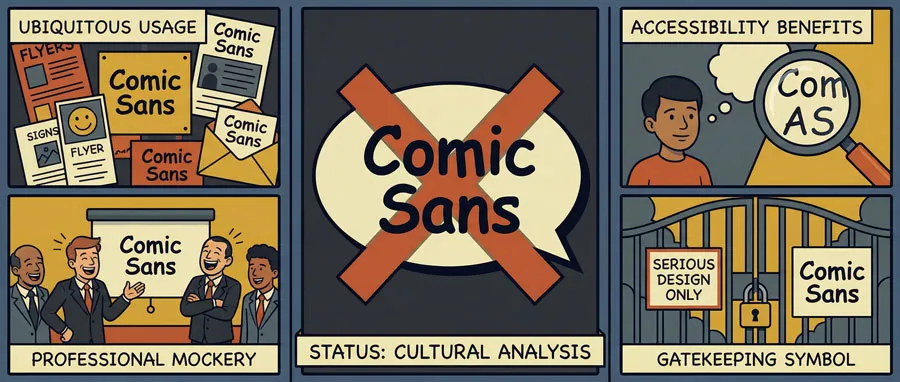
Comic Sans has achieved status as canonical “worst font”โsymbol of bad design taste and amateur status. The typeface is routinely dismissed and mocked within design communities.
Yet Comic Sans is ubiquitous. Millions use Comic Sans daily. The typeface serves real communication purposes. Dismissing Comic Sans universally suggests gatekeeping rather than legitimate criticism.
Papyrus and Decorative Dismissal
Papyrus is similarly dismissed as “worst font”โtreated as symbol of design incompetence and amateur status. Yet Papyrus possesses legitimate applications and aesthetic appeal.
The dismissal of Papyrus reflects design gatekeeping and cultural positioning.
Impact and Commercial Rejection
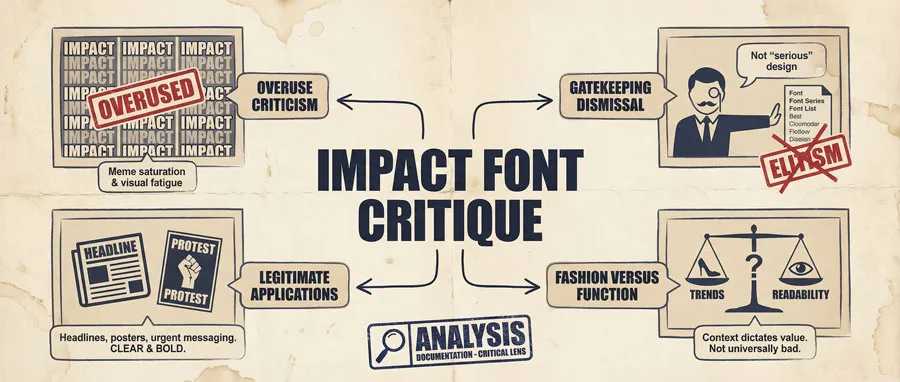
Impact is frequently criticized as “worst font”โdismissed as overused and aesthetically bankrupt. Yet Impact possesses legitimate high-impact display applications.
The rejection of Impact reflects fashion rather than legitimate criticism.
Calibri and Default Denigration
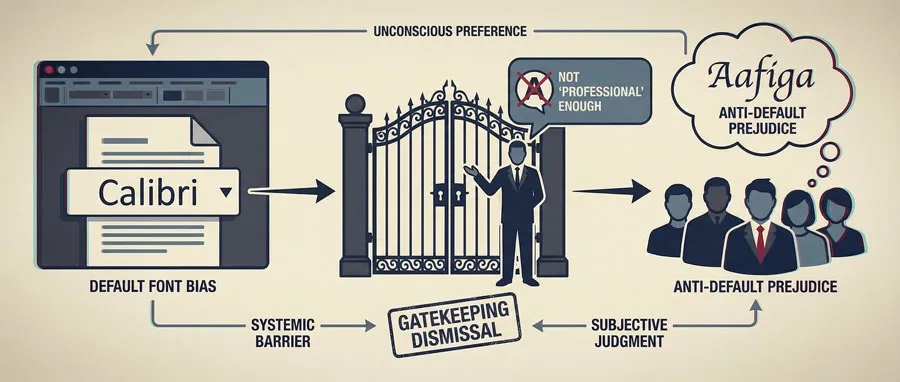
Calibri is dismissed partly because it is default fontโtreated as symbol of design laziness. Yet default status does not indicate design failure.
This dismissal reflects bias against default choices rather than legitimate aesthetic criticism.
Cultural Pattern and Gatekeeping
Pattern emerges: design culture dismisses certain typefaces not based on legitimate criticism but based on cultural status. Dismissal serves gatekeeping function establishing professional design authority.
Design Criticism vs. Gatekeeping: Distinguishing Approaches
Legitimate Design Criticism
Legitimate design criticism examines how typeface serves communication purposes. Does typeface serve intended communication? Are letter forms legible? Does design achieve intended aesthetic goals?
Legitimate criticism acknowledges context, acknowledges multiple valid design approaches.
Gatekeeping Behaviour
Gatekeeping uses design criticism to establish professional authority and exclude non-professionals. Gatekeeping dismisses entire categories of typefaces regardless of context or application.
Gatekeeping maintains professional status through dismissal rather than through design excellence.
Status Markers and Professional Positioning
Design profession uses certain typefaces as status markers. Adopting “good” fonts establishes professional credibility. Using dismissed fonts establishes amateur status.
This status system operates through gatekeeping rather than legitimate design assessment.
Accessibility Versus Fashion Hierarchy
Design culture often privileged fashion over accessibility. Comic Sans is dismissed despite accessibility benefits for dyslexic readers.
Gatekeeping prioritizes aesthetic fashion over inclusive design.
Context and Application Dismissal
Gatekeeping dismisses typefaces universally regardless of context. Yet Comic Sans works well for dyslexic readers and casual communication. Context should determine typeface appropriateness.
Gatekeeping ignores context and application in favor of universal dismissal.
Related Topics:
Accessibility and Functional Design Arguments
Comic Sans and Dyslexia Support
Research demonstrates Comic Sans’ accessibility benefits for dyslexic readers. The typeface’s distinctive letterforms assist dyslexic reading comprehension.
Dismissing Comic Sans dismisses accessibility benefits and disadvantages dyslexic users.
Beyond Aesthetics: Functional Requirements
Design encompasses more than aesthetics. Functionality, accessibility, and practical utility matter profoundly. Comic Sans prioritizes functional accessibility over aesthetic fashion.
Gatekeeping privileges aesthetics over accessibility and functionality.
Inclusive Design and Democratic Values
Inclusive design recognizes diverse user needs. Some users require distinctive letterforms for accessibility. Some users prefer informal typeface aesthetic.
Gatekeeping rejects inclusive design in favor of narrow professional aesthetic.
Universal Design Principles
Universal design principles emphasize designing for diverse users. Dismissing typefaces for diverse users contradicts universal design values.
Gatekeeping opposes universal design principles.
Diversity of Communication Contexts
Different communication contexts warrant different typeface choices. Casual communication differs from academic publishing. Diverse contexts require diverse typeface choices.
Gatekeeping imposes narrow typeface hierarchy rather than acknowledging context diversity.
Related Topics:
Democratic Design and Alternative Perspectives
Design Belongs to Everyone
Design is not exclusive professional practice. Non-professionals engage design daily. Democratic design values recognize non-professional design engagement.
Gatekeeping maintains design as exclusive professional domain.
Amateur Design Legitimacy
Amateur design possesses legitimacy despite professional dismissal. Non-professionals create meaningful, functional, beautiful design.
Professional gatekeeping dismisses amateur design engagement unfairly.
Populist Aesthetic Validity
Aesthetic preferences diverge across populations. Some people genuinely prefer Comic Sans aesthetic. Their preferences possess validity despite professional dismissal.
Gatekeeping establishes narrow professional aesthetic as universal standard.
Design Education and Accessibility
Design education remains inaccessible to many people. Professional designers have training and resources non-professionals lack. Gatekeeping leverages these educational advantages unfairly.
Inclusive design values would democratize design education.
Challenging Professional Authority
Gatekeeping maintains professional authority through dismissal. Challenging gatekeeping requires questioning professional authority and recognizing diverse design legitimacy.
Democratic design requires challenging gatekeeping and professional exclusivity.
Related Topics:
How Dismissal Operates in Design Culture
Social Media and Public Mockery
Design communities mock certain typefaces on social media, publicly ridiculing people using these typefaces. Mockery serves social bonding function within professional community.
Yet mockery causes genuine harm to non-professionals engaging design.
Professional Publications and Authority
Design publications and authorities dismiss certain typefaces establishing professional consensus. Professional consensus operates as gatekeeping mechanism.
Authority dismissal marginalizes alternative perspectives.
Design Education and Professional Socialization
Design education teaches professional preferences and dismisses alternative approaches. Student designers internalize gatekeeping attitudes.
Design education socializes gatekeeping rather than encouraging critical thinking.
Casual Conversation and Normalized Dismissal
Casual professional conversation dismisses certain typefaces as normal practice. Dismissal becomes normalized and unquestioned.
Normalized gatekeeping becomes invisible and difficult to challenge.
Status System and Professional Credibility
Using “correct” typefaces establishes professional credibility. Dismissing poor fonts demonstrates design knowledge. Status system operates through gatekeeping.
Professional credibility depends partly on demonstrating gatekeeping attitudes.
Related Topics:
Beyond Dismissal: Productive Criticism Framework
Context-Sensitive Evaluation
Productive criticism evaluates typefaces within context. Does typeface serve communication goals? Is it appropriate for intended context?
Context-sensitive evaluation acknowledges legitimate contextual variation.
Functional Assessment
Productive criticism examines functionality. Does typeface serve intended users? Are letterforms legible? Does typeface achieve functional goals?
Functional assessment acknowledges legitimate functional diversity.
Aesthetic Plurality Acknowledgment
Productive criticism acknowledges aesthetic diversity. Different users prefer different aesthetics. No single aesthetic is universally superior.
Acknowledging aesthetic plurality rejects gatekeeping hierarchy.
Accessibility Prioritization
Productive criticism prioritizes accessibility. If typeface serves accessibility purposes, this matters profoundly regardless of aesthetic fashion.
Prioritizing accessibility rejects gatekeeping that privileges fashion over accessibility.
Respectful Engagement
Productive criticism engages respectfully with typeface choices. Rather than mockery, productive criticism seeks understanding of contextual choices.
Respectful engagement contrasts with dismissive gatekeeping.
Related Topics:
FAQ: Common Questions About Worst Fonts and Gatekeeping
Q: Is Comic Sans actually a bad font?
A: Comic Sans is poor choice for many contexts but excellent for dyslexic accessibility. Context determines appropriateness.
Q: Why do designers dismiss Comic Sans?
A: Dismissal reflects gatekeeping more than legitimate criticism. Comic Sans’ ubiquity threatens professional design authority.
Q: Is design gatekeeping intentional?
A: Gatekeeping often occurs unconsciously through socialization. However, effects remain damaging regardless of intent.
Q: Should I never use dismissed typefaces?
A: No. Consider context and accessibility. If typeface serves purpose, context justifies usage.
Q: What makes criticism legitimate versus gatekeeping?
A: Legitimate criticism considers context. Gatekeeping dismisses universally regardless of context.
Q: Are amateur designers’ choices valuable?
A: Yes. Amateur designers create meaningful design. Professional dismissal reflects gatekeeping rather than design reality.
Q: How can we challenge design gatekeeping?
A: Question professional authority. Recognize diverse design legitimacy. Prioritize accessibility and functionality over fashion. Engage respectfully with alternative choices.
Q: Should Comic Sans be used in professional contexts?
A: Generally not, but context matters. Accessibility requirements might justify usage even in professional contexts.
Q: Is design education complicit in gatekeeping?
A: Yes. Design education often socializes gatekeeping attitudes. Reform is necessary.
Q: What would inclusive design gatekeeping look like?
A: Inclusive design recognizes diverse legitimacy, prioritizes accessibility, considers context, respects alternative choices, and challenges professional exclusivity.
Related Topics:
Conclusion: Toward Inclusive Typography Culture
The “worst fonts” phenomenon reveals design culture’s gatekeeping tendencies more than legitimate criticism. Design professionals use typeface dismissal to establish authority and exclude non-professionals.
Yet this gatekeeping causes genuine harm. It discourages design engagement. It marginalizes accessibility priorities. It establishes false hierarchies. It reflects elitism rather than design excellence.
Productive design criticism requires distinguishing legitimate concerns from gatekeeping. Context matters. Functionality matters. Accessibility matters. Aesthetic diversity matters.
Comic Sans dismissal particularly reveals gatekeeping problems. Research demonstrates Comic Sans accessibility benefits. Dismissing Comic Sans dismisses accessibility advantages and disadvantages dyslexic users.
Design should be inclusive and accessible. Yet gatekeeping maintains design as exclusive professional domain. Challenging gatekeeping requires recognizing diverse design legitimacy and prioritizing accessibility and functionality.
Design professionals should engage more respectfully with non-professional design choices. Rather than mockery, professionals should seek understanding of contextual choices and functional requirements.
Design education should reform to challenge gatekeeping rather than socializing it. Students should learn critical assessment skills rather than internalizing professional dismissals.
Design culture should develop more inclusive values recognizing diverse legitimacy. This requires challenging professional authority, acknowledging aesthetic diversity, and prioritizing accessibility.
The “worst fonts” conversation ultimately reveals not fonts’ actual quality but design culture’s gatekeeping tendencies. Reforming this requires questioning professional authority and building more inclusive typography culture.
Typography culture could become more inclusive, more accessible, and more democratic. This requires conscious effort to challenge gatekeeping, recognize diverse legitimacy, and prioritize human needs over professional fashion.